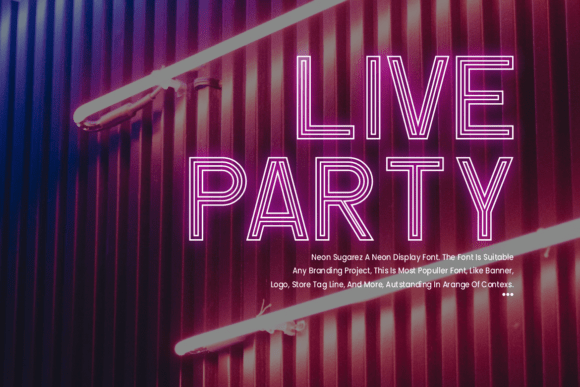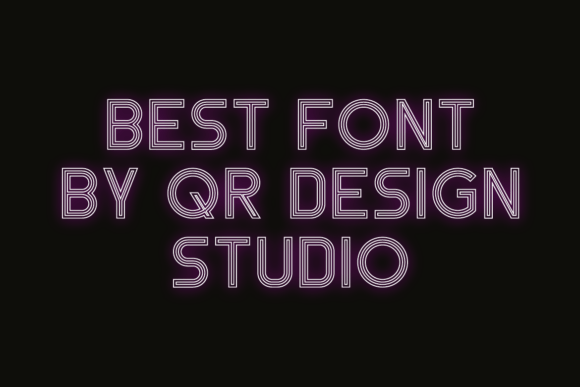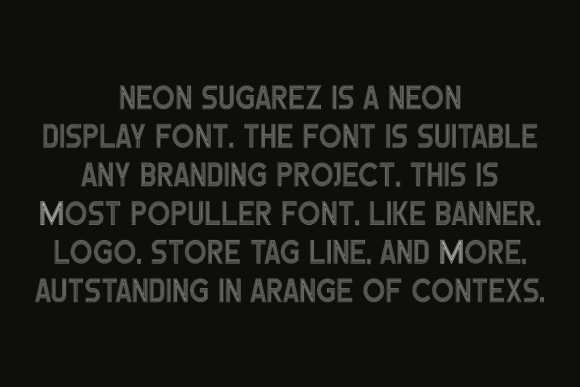
Introduction to Neon Sugarez Font
Have you ever been stuck on a creative project, struggling to find the perfect font to capture the essence of your idea? I’m sure we’ve all been there. It’s like searching for a needle in a haystack, only to find that one elusive font that makes your design pop. For designers, finding that perfect font can be the difference between a mediocre project and a masterpiece. And that’s where the Neon Sugarez Font comes in – a bold and futuristic display font that’s sure to ignite your creativity and take your designs to the next level.
With its clean outline style and luminous presence, the Neon Sugarez Font is perfect for digital artwork, signage, music posters, and branding that demands attention. Whether you’re working on a free download or a high-quality design resource, this font pairs modernity with nostalgia, offering a stylish edge for standout headlines and creative visuals.
Key Features of Neon Sugarez Font
- High-quality font design, ideal for creative projects and design resources
- Includes a transparent background, allowing for seamless integration into various design elements
- Designed with a unique aesthetic, featuring vibrant and eye-catching neon-inspired colors and patterns
Honest Review: Neon Sugarez Font
As a designer, I’m always on the lookout for high-quality design resources to elevate my creative projects. Recently, I came across the Neon Sugarez Font, and I’m excited to share my honest review with you.
- ✨ The Neon Sugarez Font has a unique and eye-catching design, perfect for adding a touch of neon glamour to your projects.
- ✨ The font is highly customizable, allowing you to adjust the size, color, and style to suit your design needs.
- ⚠️ The font is not ideal for use with a transparent background, as the neon colors may not display well.
- ⚠️ Some users may find the font too flashy or overwhelming, so use it sparingly to avoid overwhelming your design.
Overall, I’m impressed with the Neon Sugarez Font, and I think it’s a great addition to any designer’s toolkit. With its high-quality design and free download option, it’s a must-have for any creative project. Just be mindful of its limitations and use it in moderation to get the best results.
Tips for Getting the Most Out of Neon Sugarez Font
Experiment with different font sizes, colors, and styles to create unique and eye-catching designs. Combine the Neon Sugarez Font with other design elements to add depth and visual interest to your creative project.
The Neon Sugarez Font is perfect for designing social media graphics, presentations, and marketing materials. Its high-quality design and transparent background make it an ideal choice for various creative projects.